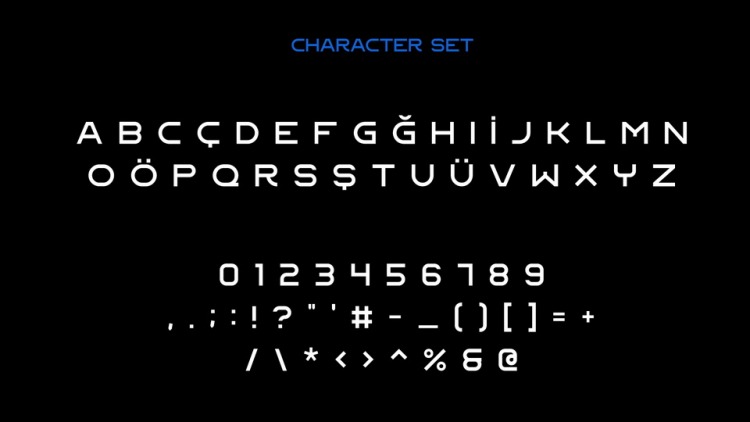
Flat Level Sans Serif Font
This is a vintage print inspired font that is versatile, and is perfect for a variety of uses. It comes with two weights, contains only all caps letters, numbers, and symbols. The font supports only English and Turkish languages. Is great for text, headers, web, logos, brandings and more.